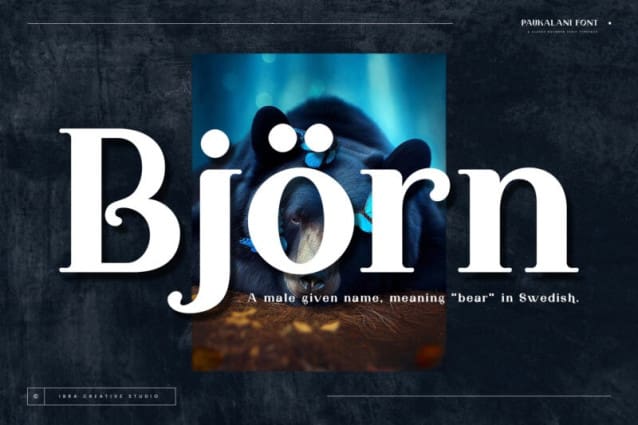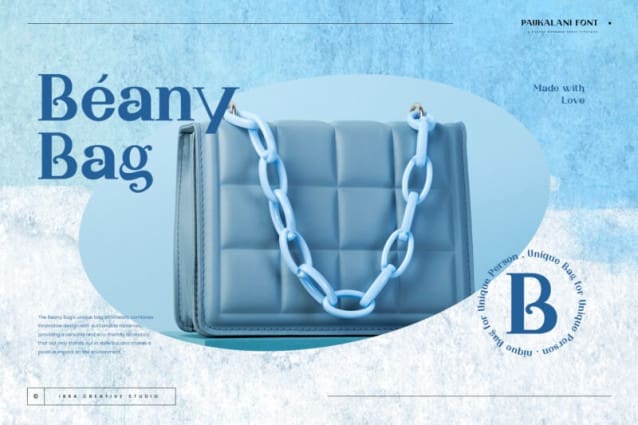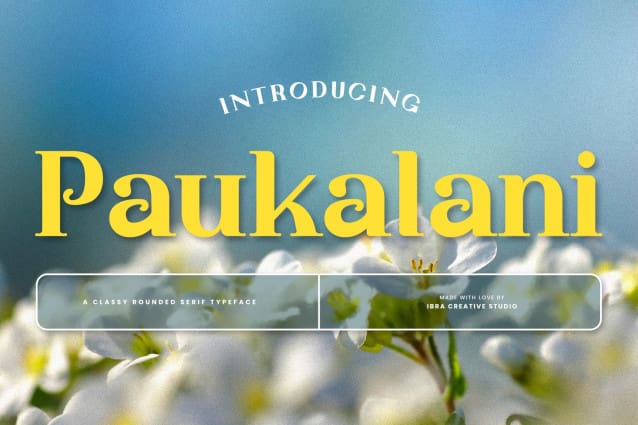
Paukalani Font
Paukalani Font, a sophisticated rounded serif typeface, effortlessly blends elegance with modern design. Its graceful curves and subtle serifs contribute to a timeless aesthetic, embodying a perfect balance between tradition and contemporary flair. The rounded edges of each character soften the overall appearance, creating a warm and inviting typographic experience. Paukalani’s meticulously crafted letterforms exude a sense of refinement, making it an ideal choice for projects that demand a touch of class and versatility. Whether used in print or digital media, Paukalani stands as a testament to the harmonious fusion of classic serif elements and a sleek, rounded demeanor, offering a distinctive and captivating visual identity to any design.
Paukalani Font is perfect for branding projects, logo, wedding designs, social media posts, advertisements, product packaging, product designs, label, photography, watermark, invitation, stationery, game, fashion and any projects.